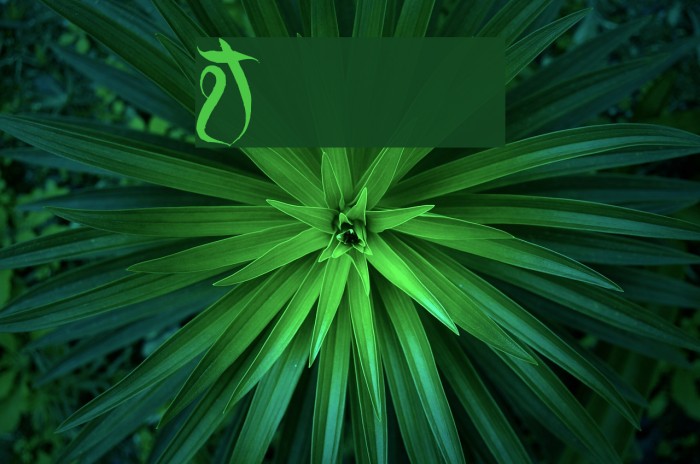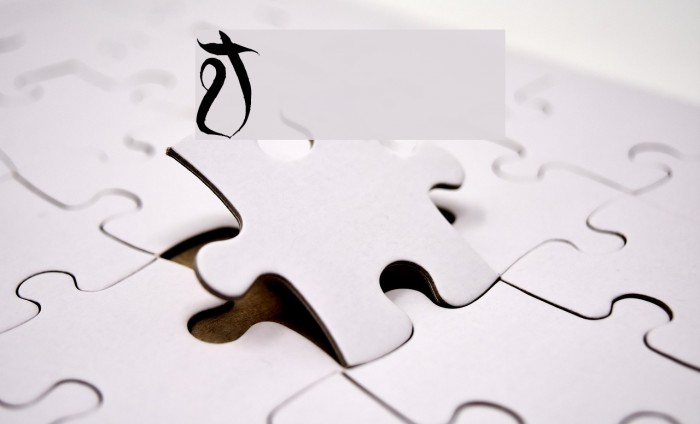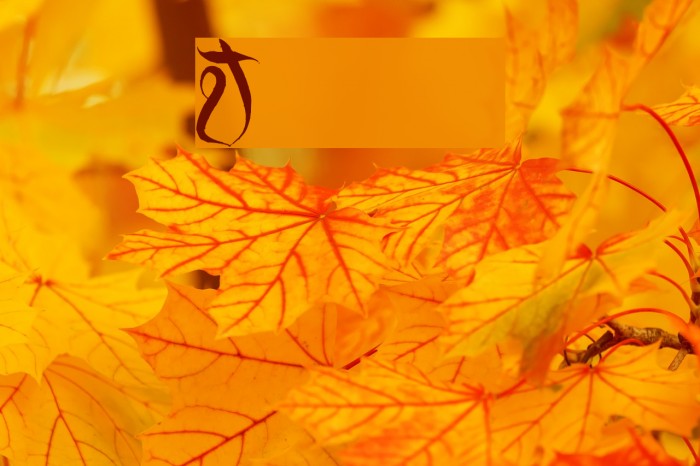
Juiced Font
This font features an elaborate and artistic design with a strong emphasis on decorative elements. Each character is adorned with intricate swirls and flourishes, creating a sense of movement and elegance. The uppercase letters are particularly ornate, with exaggerated curves and loops that give the font a whimsical and almost fantastical appearance. The lowercase letters maintain a similar style, though they are slightly more subdued, allowing for better readability. The numbers and special characters follow the same decorative theme, ensuring a cohesive look across all elements. This font is ideal for projects that require a touch of elegance and creativity, such as invitations, posters, or branding materials.
An ornate and decorative font with intricate swirls and flourishes.
- Proposed Projects: Ideal for invitations, posters, branding, and creative projects requiring elegance.